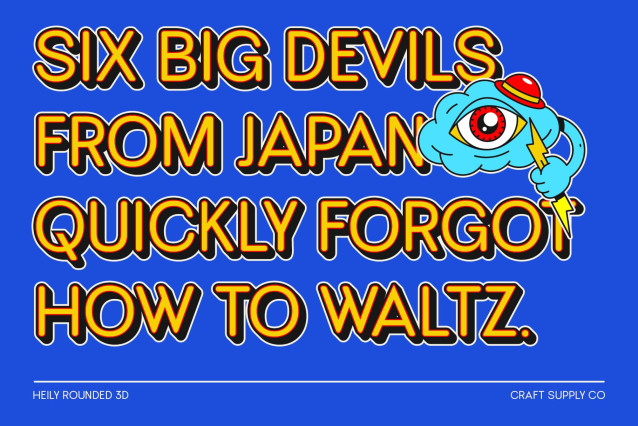
Heily Rounded 3D Font
Heily Rounded 3D Font is a modern sans-serif font that brings together geometric structure, grotesque balance, and gentle rounded corners. Its clean and minimalist form exudes clarity, while the subtle curvature softens the overall tone—striking the perfect harmony between professionalism and approachability. Enhanced with a bold 3D effect, it adds dynamic depth to any composition.